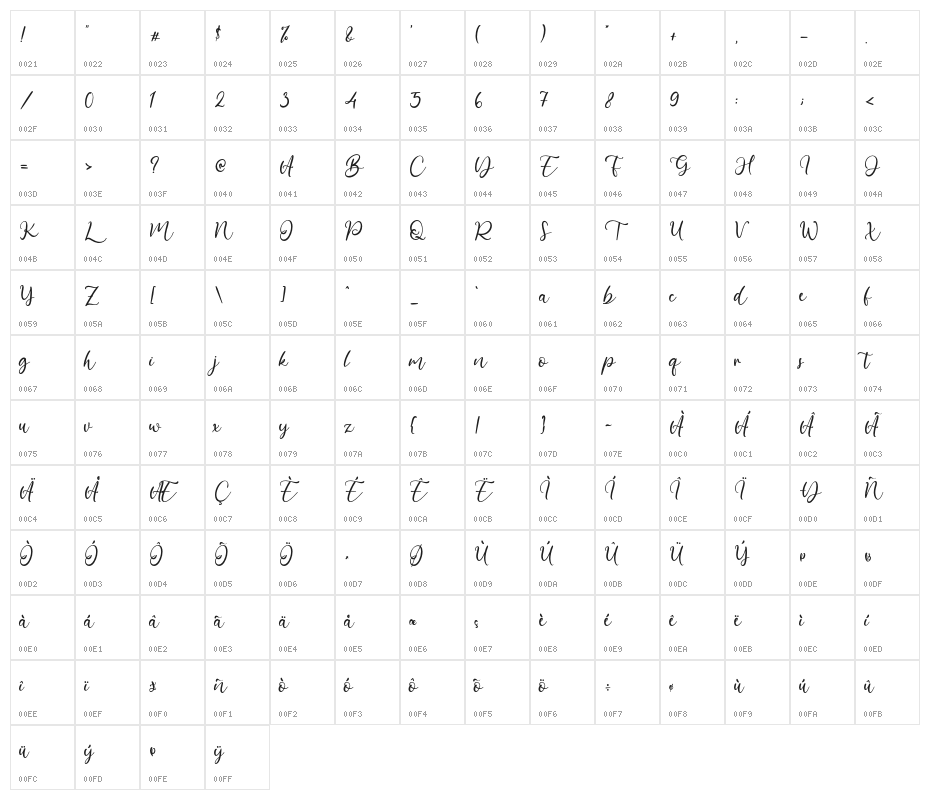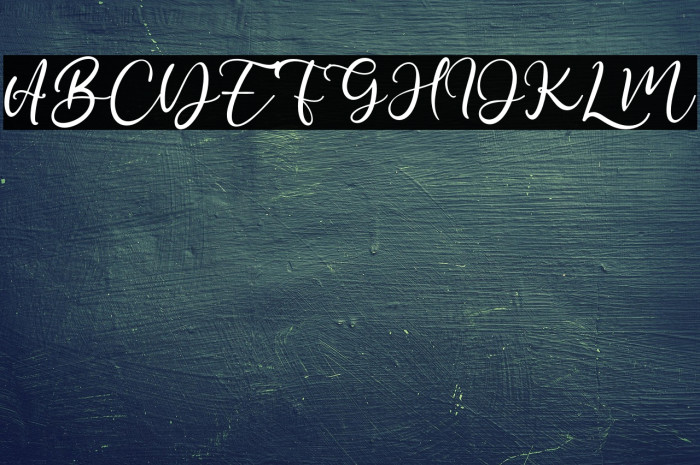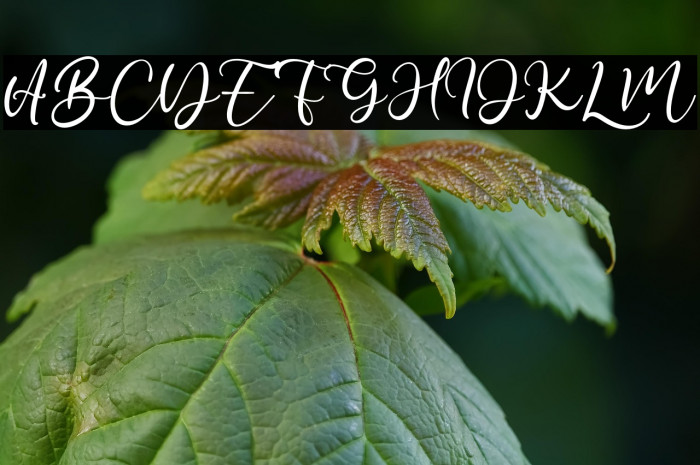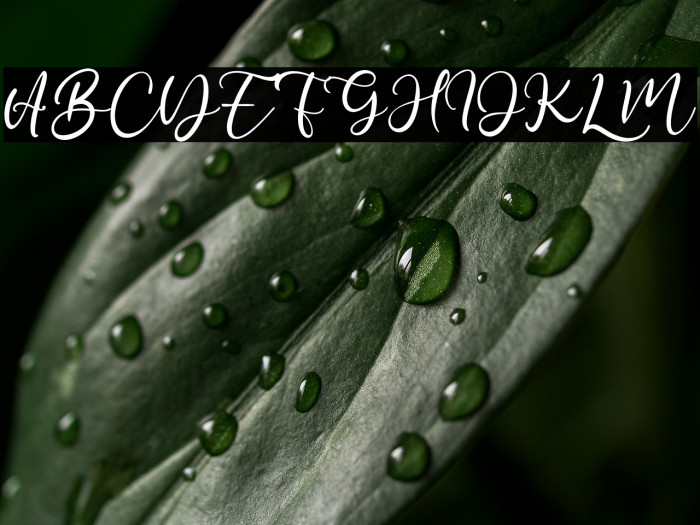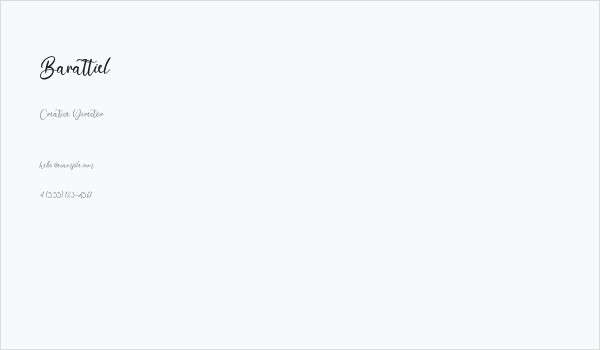
Barattiel Font
Barattiel Description
This elegant script font features a flowing, cursive style with smooth, connected strokes that give it a handwritten appearance. The uppercase letters are gracefully looped and slightly exaggerated, adding a touch of sophistication and flair. The lowercase letters maintain a consistent flow, with gentle curves and a natural rhythm that enhances readability. Numbers and special characters are designed to match the overall aesthetic, ensuring a cohesive look across all text elements. This font is ideal for projects that require a personal, artistic touch, such as invitations, greeting cards, and branding materials.
| Overall Style | Elegant, Artistic |
| Use Case | Headlines, Invitations, Artistic projects |
| Proposed Projects | Ideal for wedding invitations, greeting cards, personal branding, and artistic projects. |